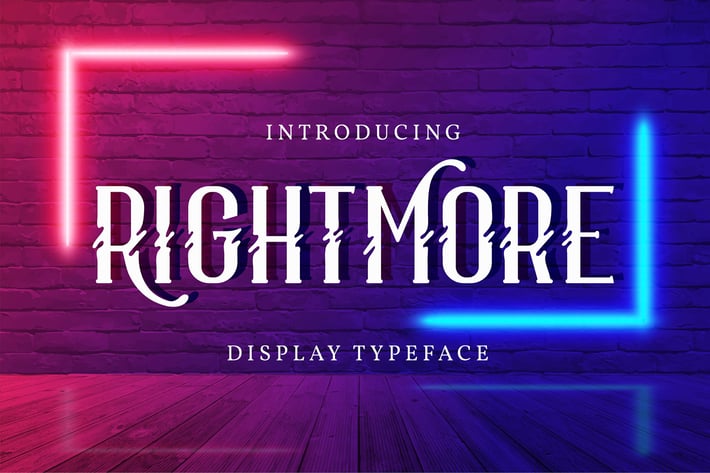
Rightmore | Display Typeface
Rightmore | Display Typeface with a calligraphy style, So beautiful on invitation like greeting cards, branding materials, business cards, quotes, posters, and more!